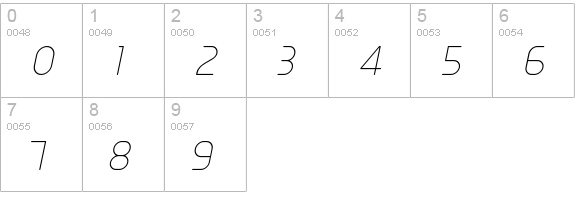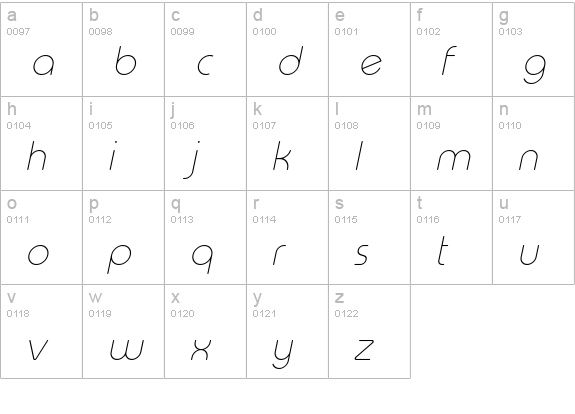
Typo Round Thin Italic Demo is a delicate, low-contrast, italic variant in the Typo typeface family \xE2\x80\x94 well suited to fashion editorial, minimal branding, and high-contrast display.
The Typo Round Thin Italic Demo font is a stunning display of elegance and sophistication. Its delicate, thin strokes and italicized design exude a sense of grace and refinement. Perfectly suited for projects that require a touch of modernity and style, this font will effortlessly elevate any design to new heights. With its clean lines and unique curvature, Typo Round Thin Italic Demo is bound to captivate any audience. Whether used for branding, advertising, or editorial purposes, this font stands out and leaves a lasting impression. Its versatility allows it to be seamlessly integrated into various design concepts, making it a valuable asset for any creative project. What makes this font even more remarkable is that it is available for free. Yes, you read that right! Typo Round Thin Italic Demo can be freely downloaded from FontsMarket.com, a trusted source for high-quality fonts. This means that you can enhance your projects without any additional cost, allowing you to allocate your resources to other aspects of your design. Don't miss out on this incredible opportunity to add Typo Round Thin Italic Demo to your font collection. Its exquisite aesthetic and exceptional quality make it a must-have for designers and creatives alike. Download it today from FontsMarket.com and unlock a world of endless possibilities for your next project.